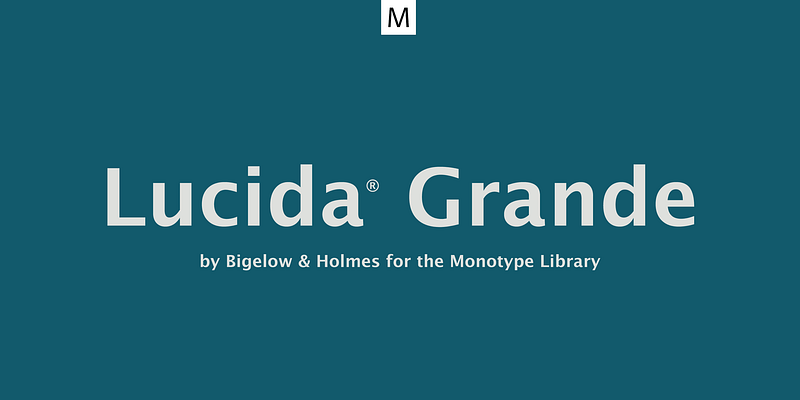
Lucida Grande
Lucida Grande is a humanist sans serif font with a large x-height, clear letterforms, and space-saving economy. Its easy reading qualities make it legible for printing and screen displays even down to small sizes. Lucida Grande is part of the Lucida superfamily of fonts from Bigelow & Holmes. Lucida is highly regarded for legibility and its extensive range of type styles. The Lucida Grande family has eight fonts with weights from Thin to Black with matching italics. Each font has 674 glyphs and supports the W1G character set. This includes Latin, Greek and Cyrillic alphabets to support many languages in Europe, the Americas, and worldwide.